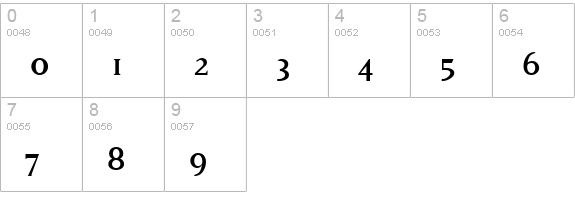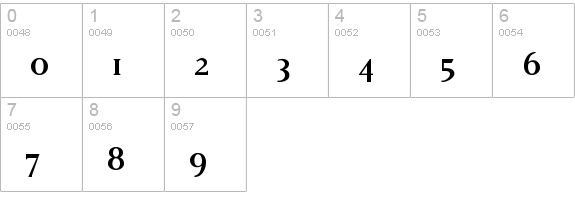
Luzern Font Details
Luzern font is a modern and elegant typeface that exudes sophistication and versatility. Its clean lines and timeless appeal make it a perfect choice for a wide range of design projects, from branding to editorial design. The sleek and stylish letterforms of Luzern font will add a touch of refinement to any design layout, creating a polished and professional look. What's even better is that Luzern font is available for free download at FontsMarket.com. This means you can easily access this high-quality font without any cost, making it an excellent choice for designers looking to enhance their projects without breaking the bank. Don't miss out on the opportunity to add Luzern font to your font library and elevate your designs with its sleek and sophisticated aesthetic.